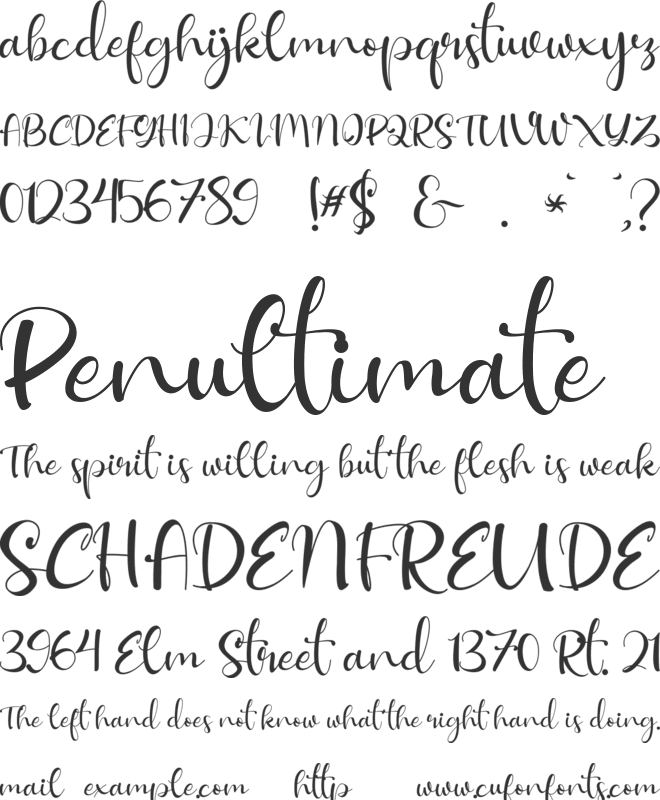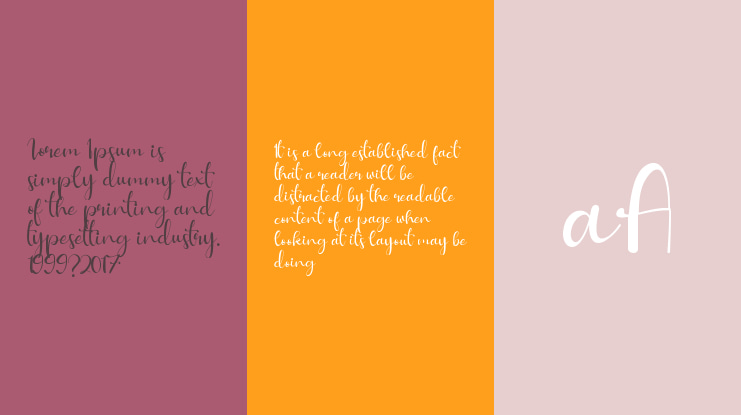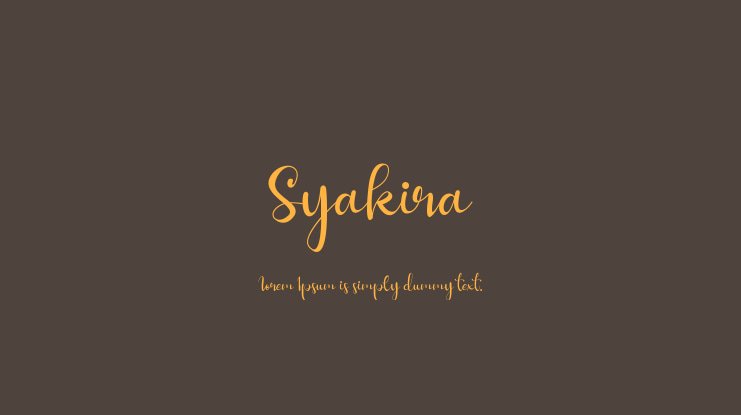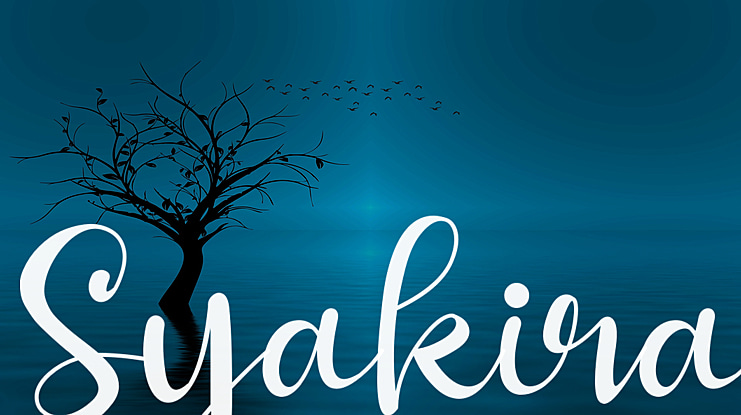
Syakira Font
Syakira is a beautiful calligraphy with beautiful stylishtic alternate, swashes and decorate, suitable for your every project such as, frame design, invitation, greeting cards and many more. Make your every project look perfect and beautiful.